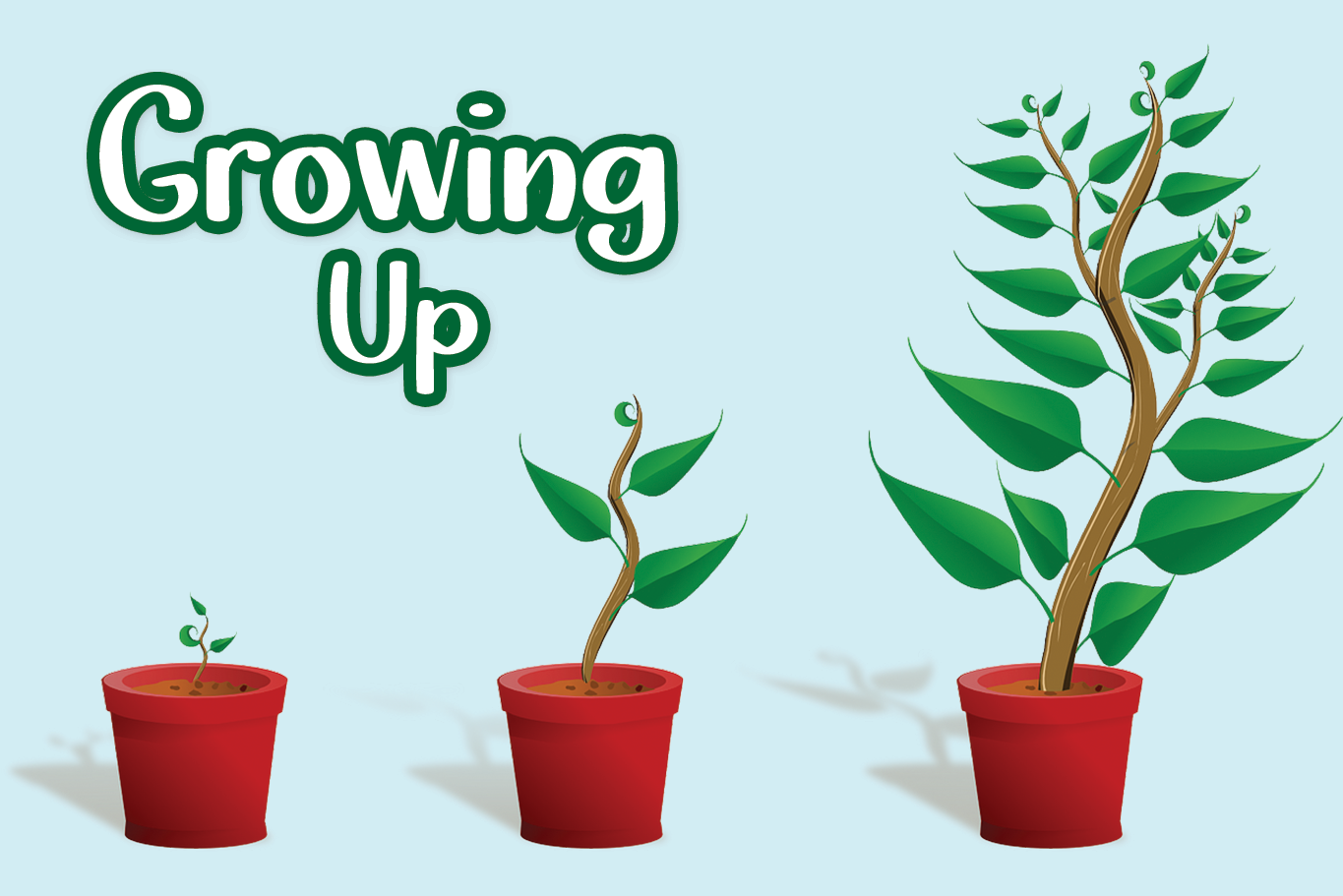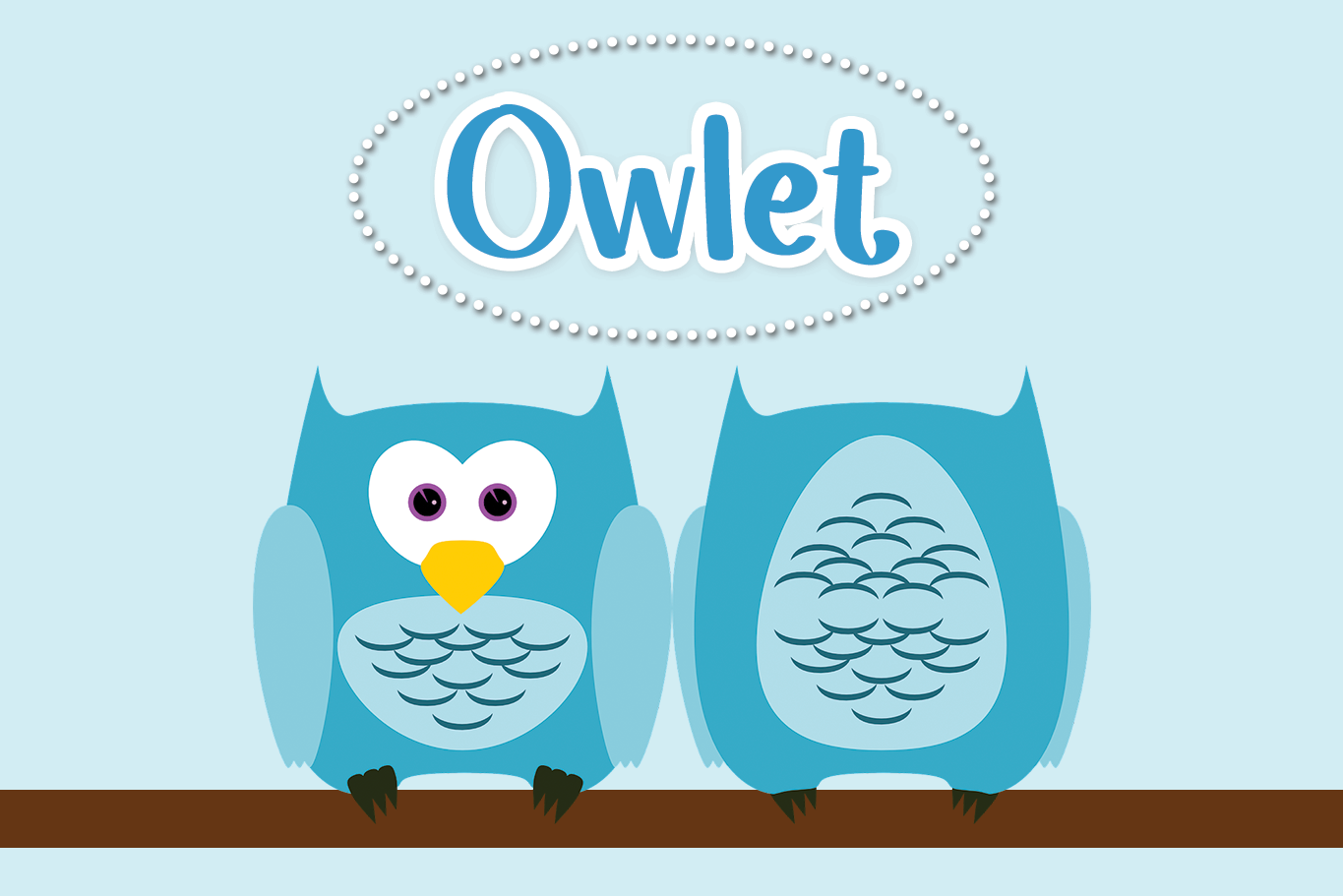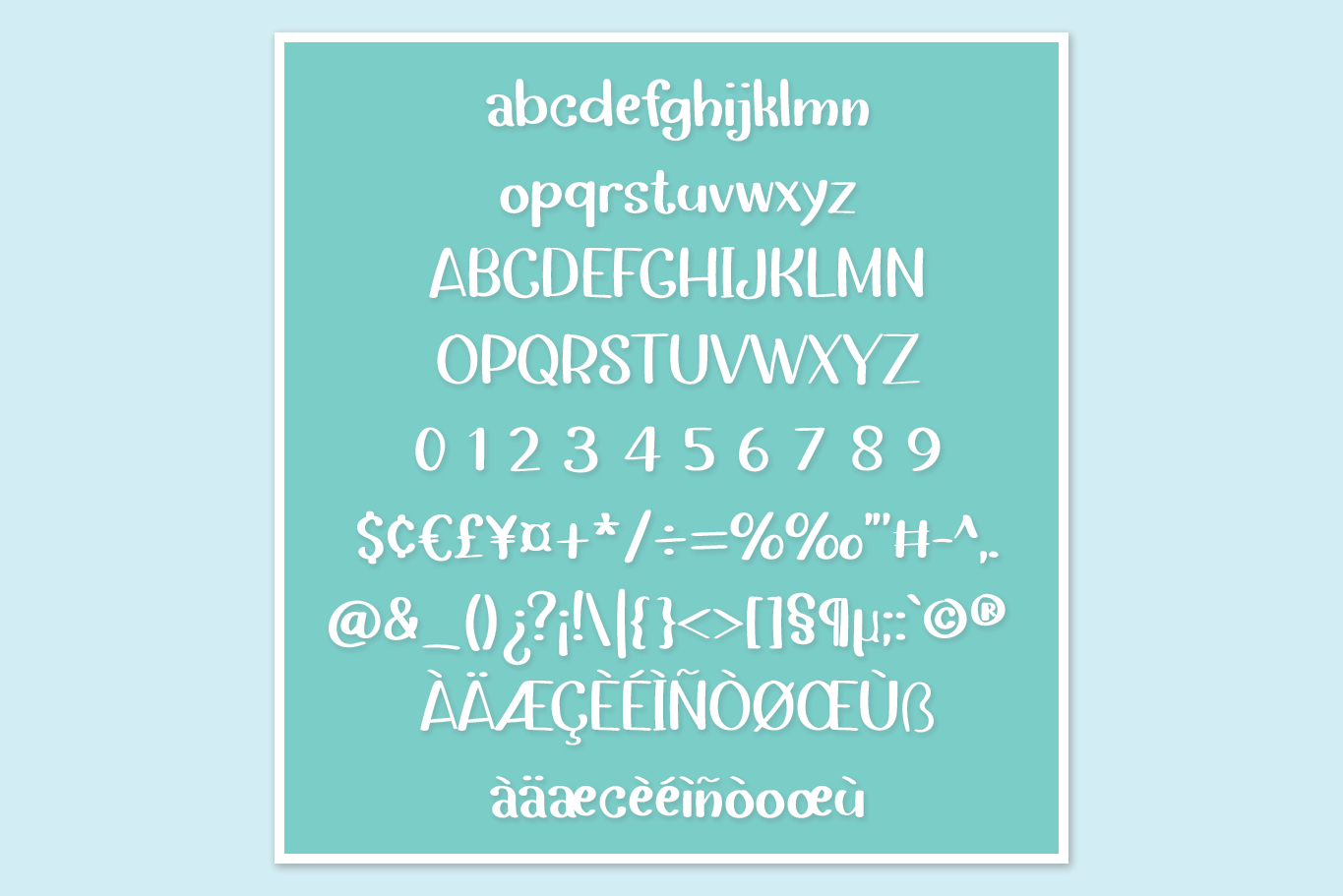
The Monogram Font
The Monogram Display Font
This is a fun and playful script font. No matter the topic, this font will be an incredible asset to your fonts’ library, as it has the potential to elevate any creation.